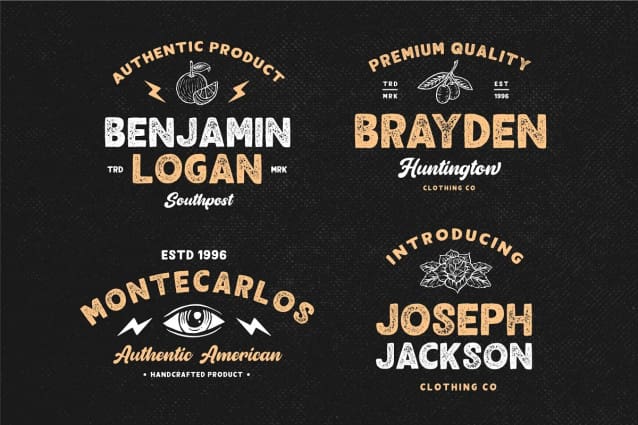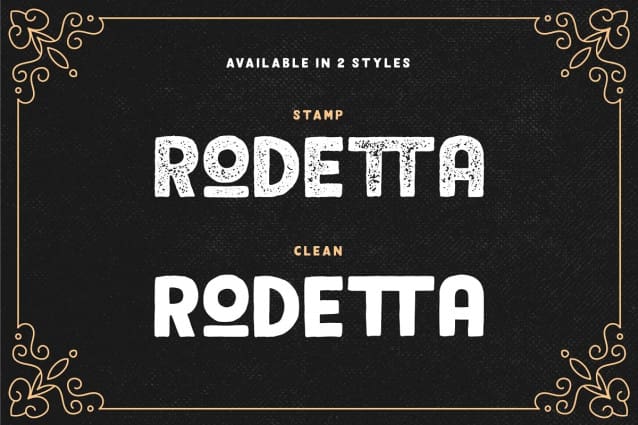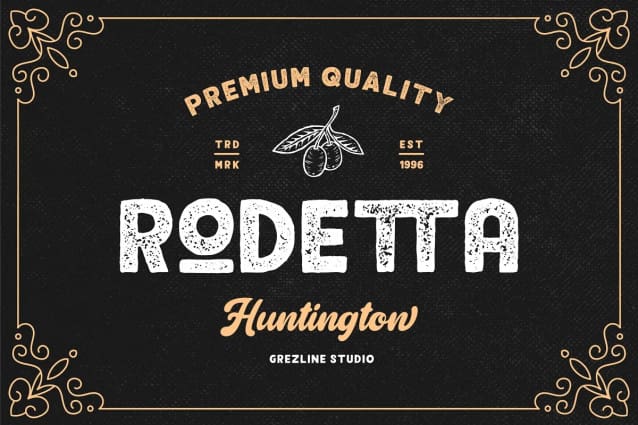
Rodetta Display Font
Rodetta Display Font, is hand drawn vintage sans font that I crafted very carefully, it is an all-caps font. Perfectly match to use for any branding design that needs a handcrafted touch feel. Rodetta is a font that you can use to make a vintage logo for branding, typography design, magazine or book cover, website header, product packaging, t-shirt design, label poster and many more.